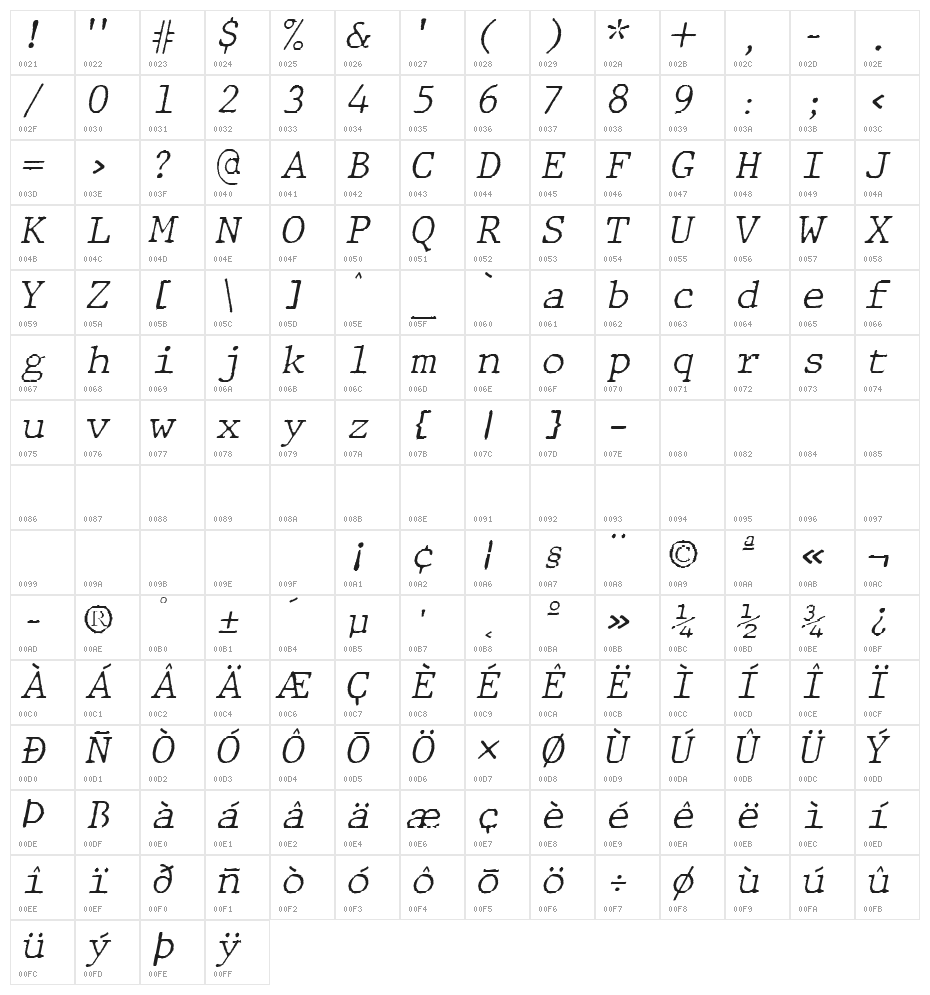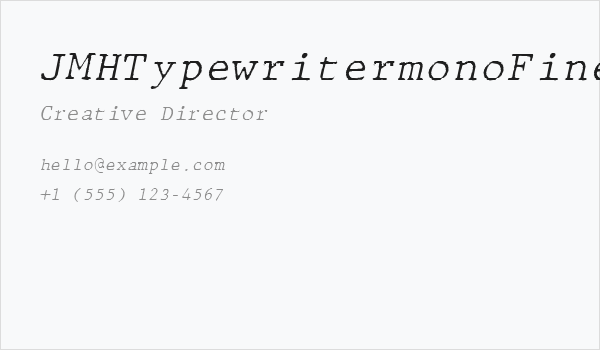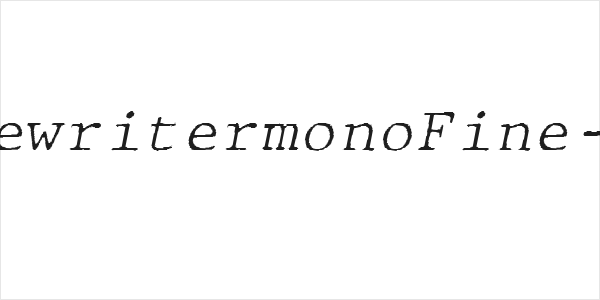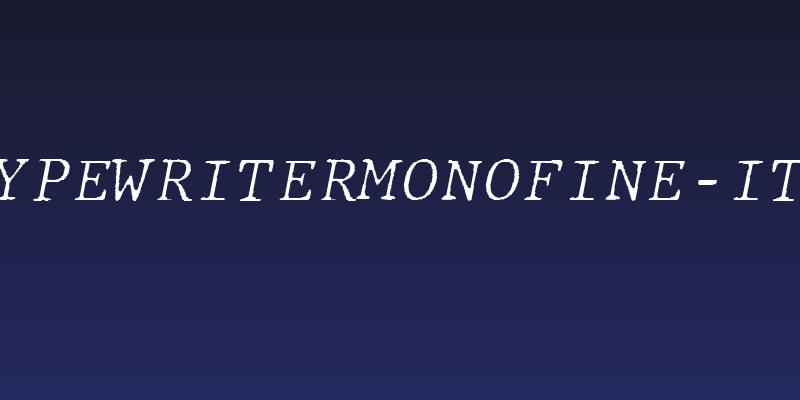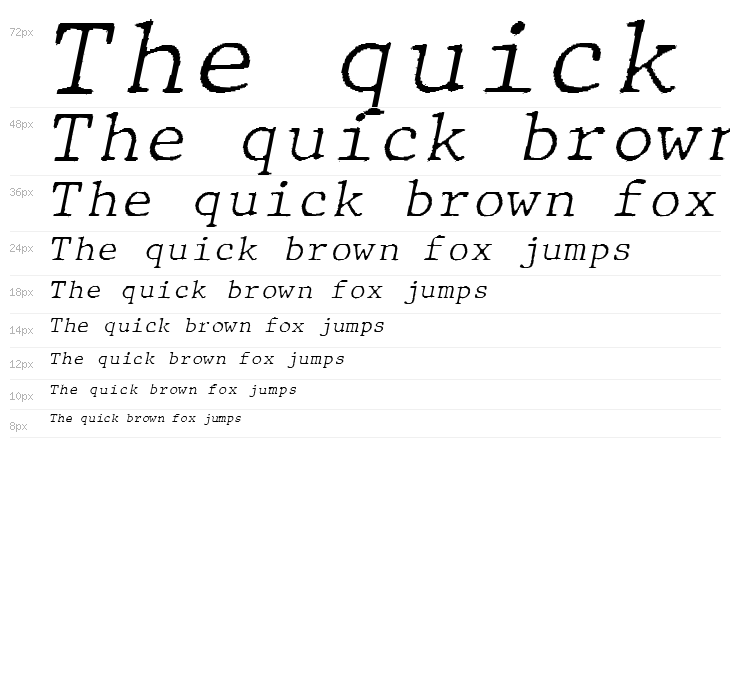
JMHTypewritermonoFine-Italic Font
JMHTypewritermonoFine-Italic Description
This typeface embodies a classic typewriter aesthetic with a modern twist. Each character is monospaced, ensuring uniformity in width, which is a hallmark of traditional typewriter fonts. The italic style adds a dynamic and elegant touch, making it stand out from typical typewriter fonts. The strokes are consistent, with a medium contrast that provides clarity and readability. The font maintains a clean and professional appearance, suitable for both formal and creative applications. The special characters are well-defined, complementing the overall design. This typeface is versatile, offering a nostalgic feel while still being applicable in contemporary design contexts.
| Use Case | Logos, Creative writing, Branding |
| Proposed Projects | Ideal for projects that require a vintage or retro feel, such as typewriter-themed designs, creative writing projects, or branding for artisanal products. |